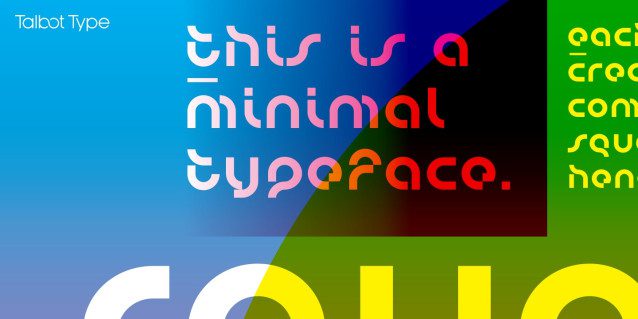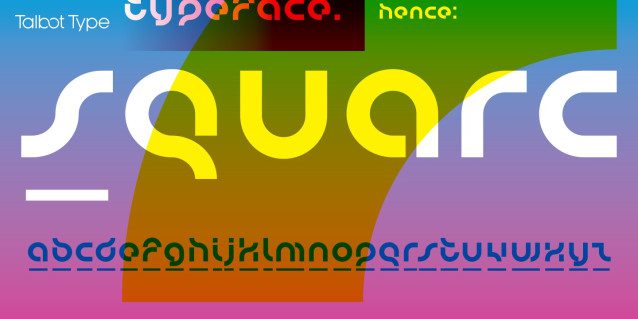
Squarc Font
Squarc Font is a minimal, modular font. This one really is minimal, all characters are comprised of combinations of just a pair of components – a square and an arc, hence: Squarc. A minimal typeface such as this, inevitably has something of a brutal look – this has to be embraced. The result has a rugged beauty. Squarc features only lower case – it’s minimal remember. Lower case characters have a rhythm and flow, missing from the more block-like forms of capital letters. And besides, beyond being required for proper nouns and sentence starts, capitals are redundant; so they can go. Capitals in Squarc are denoted by an underlined letter. Squarc is a clean, geometric, graphic, mathematical, modular, matrix-based typeface.